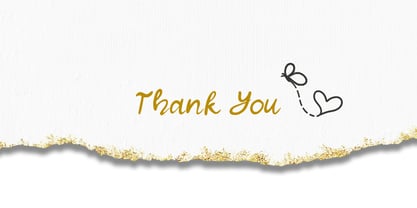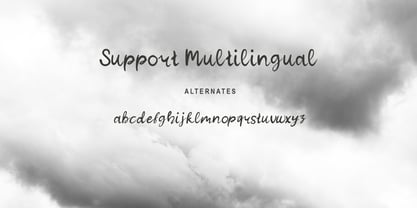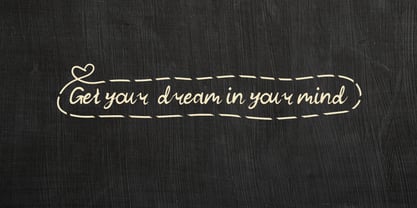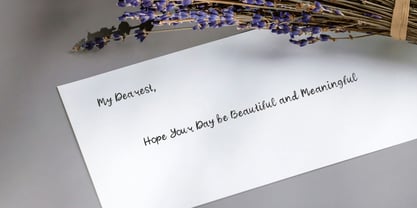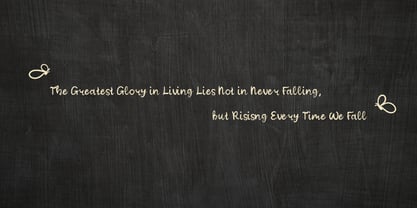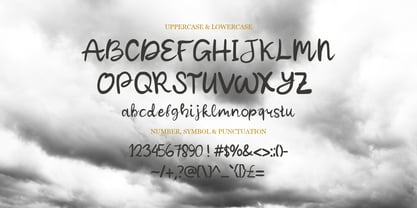
Graysy
Graysy is an elegant and sophisticated script typeface, expertly designed to leave a striking visual impression in your refined writing. Featuring a bold yet delicate personality, this typeface showcases a mesmerizing contrast between thick and thin strokes, adorned with graceful, curved serifs and detailed flourishes. Its refined design evokes a sense of enduring beauty and deep significance, making it perfect for branding, editorial headlines, invitations, and other impactful creative projects.